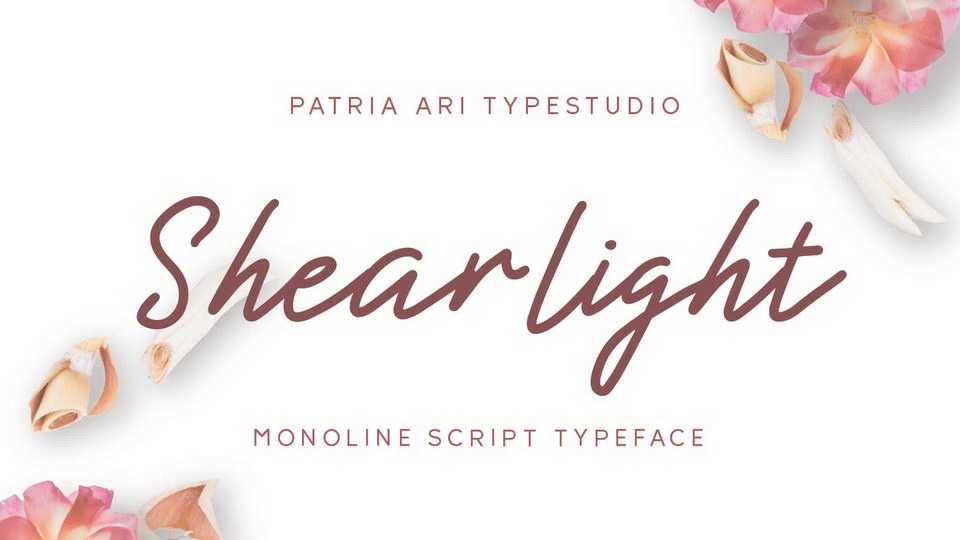
Download Shearlight font, a beautiful monoline script typeface with elegant but strong shapes in every glyphs. Shearlight is perfect for branding projects, logo, wedding designs, social media posts and any projects that need handwriting taste.